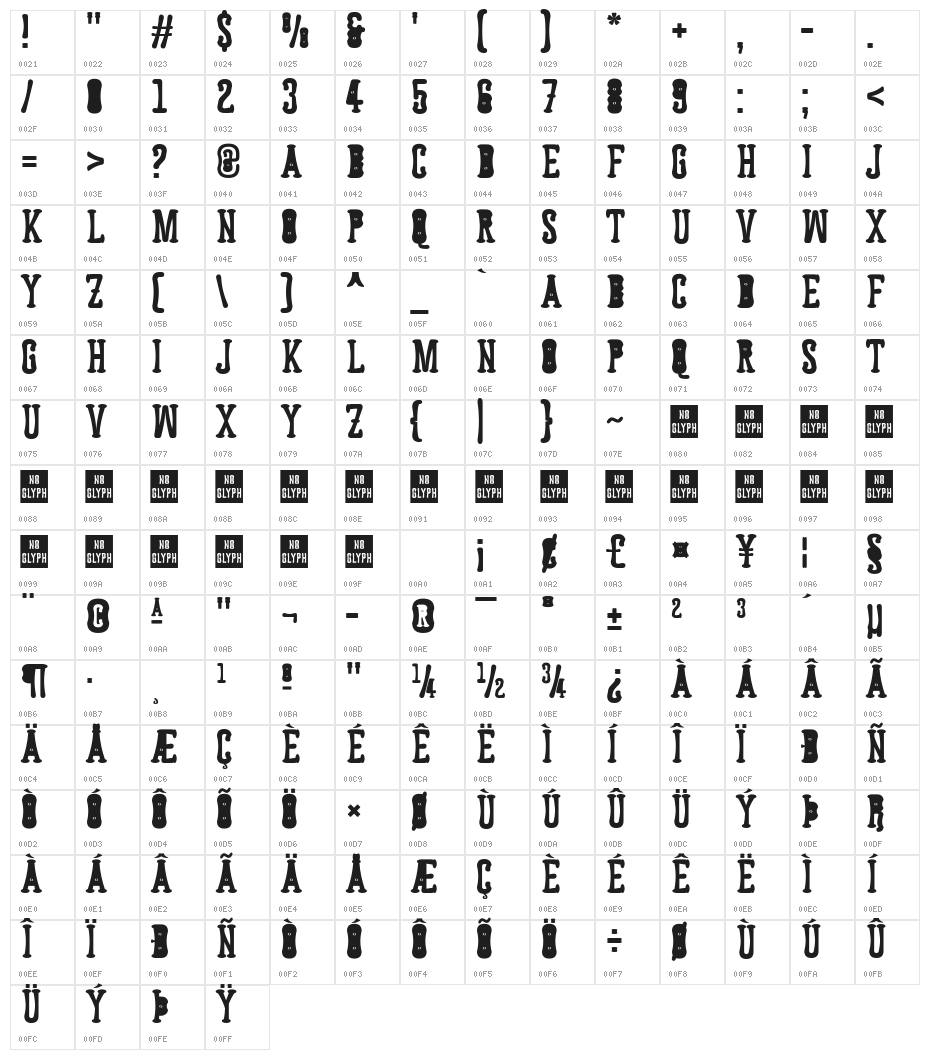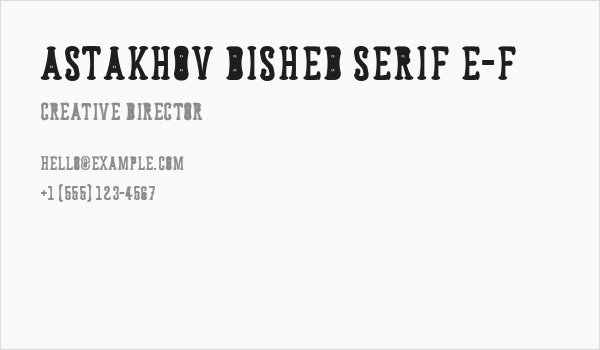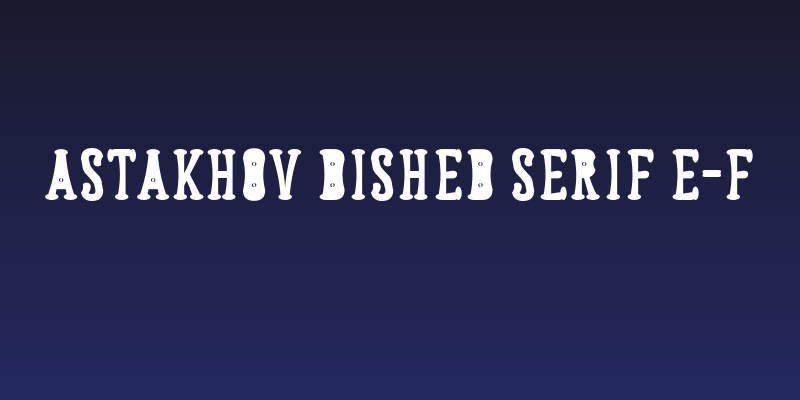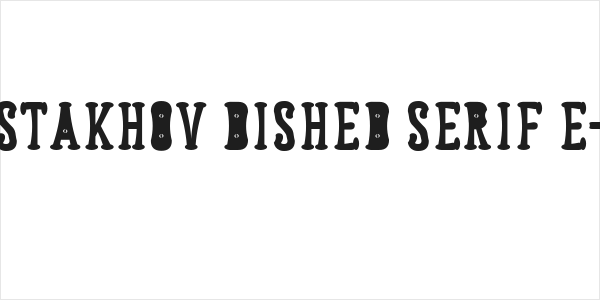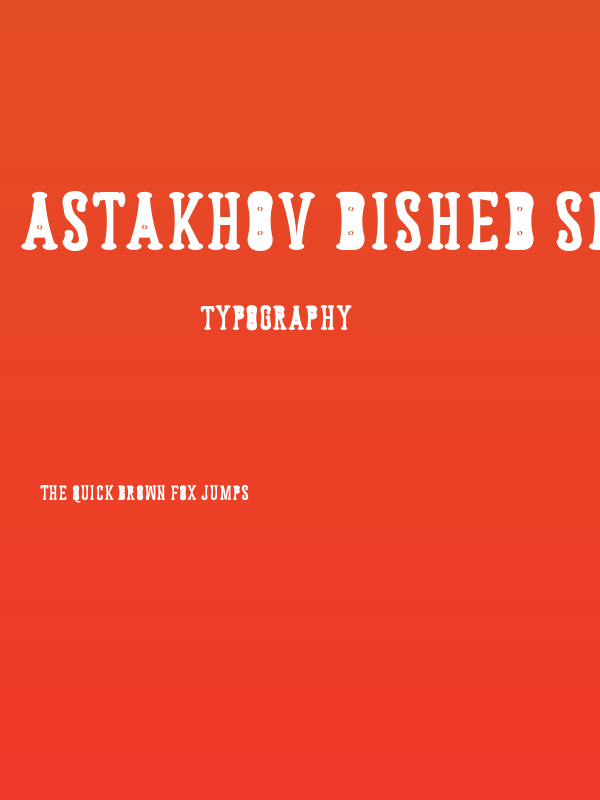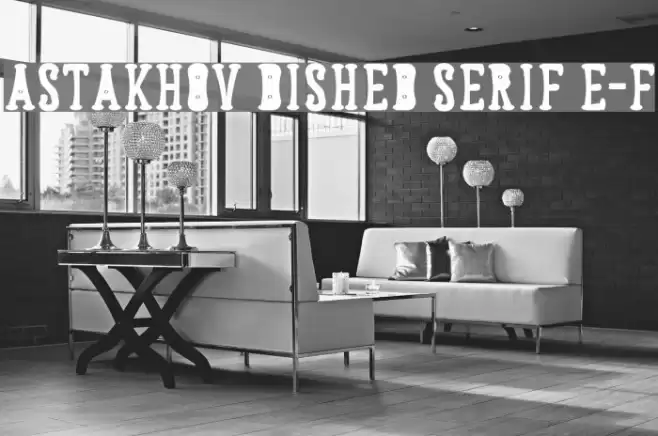
Astakhov Dished Serif E-F Font
Astakhov Dished Serif E-F Description
This font features a bold and playful design with a unique, whimsical flair. Each character is crafted with exaggerated serifs and a slightly irregular shape, giving it a hand-drawn appearance. The letters are bold and thick, with a high contrast between the strokes, making them stand out prominently. The overall style is decorative and eye-catching, suitable for creative and artistic projects. The numbers and special characters maintain the same playful and bold style, ensuring consistency across all glyphs.
| Proposed Projects | Ideal for posters, children's book covers, playful branding, and creative event invitations. |